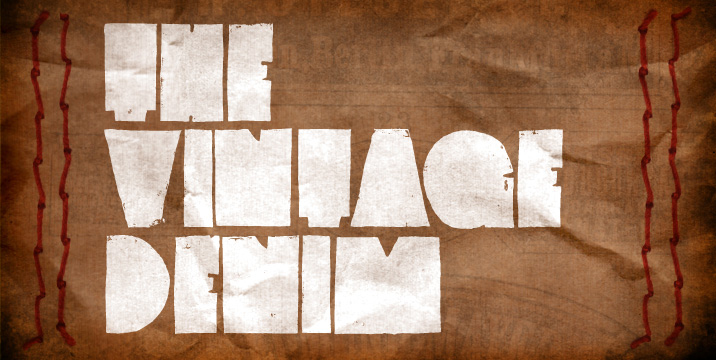
Font name: | Vintage Denim |
Author: | Ulrich Vinyl |
Note by Ulrich Vinyl | |
The glyphs are made out of handmade lino cut prints. Each glyph comes in four different stlyes. Mail me pictures, when using this font! |